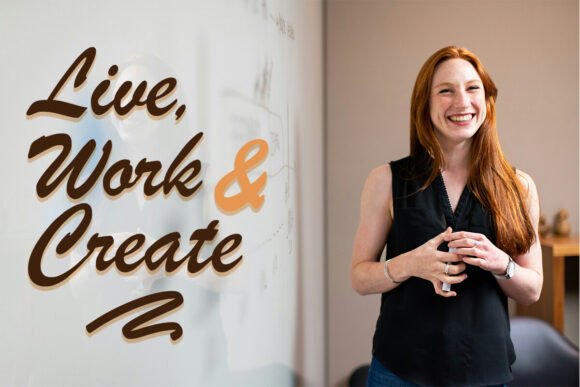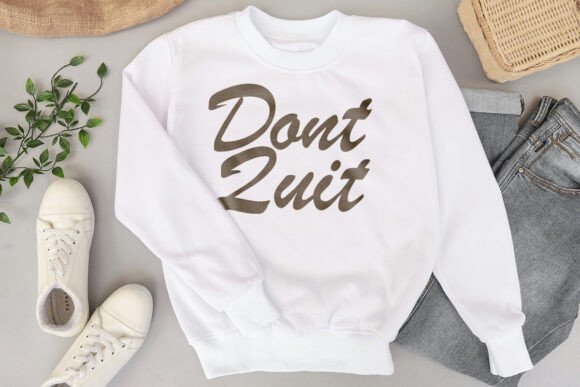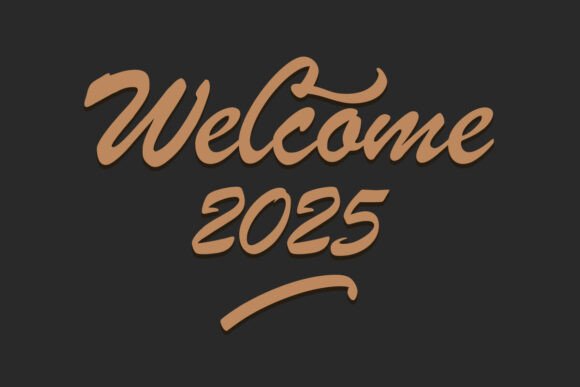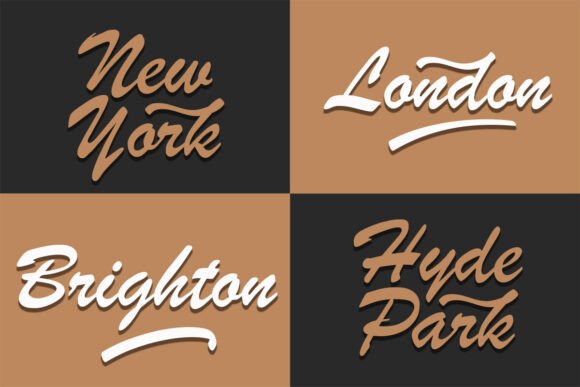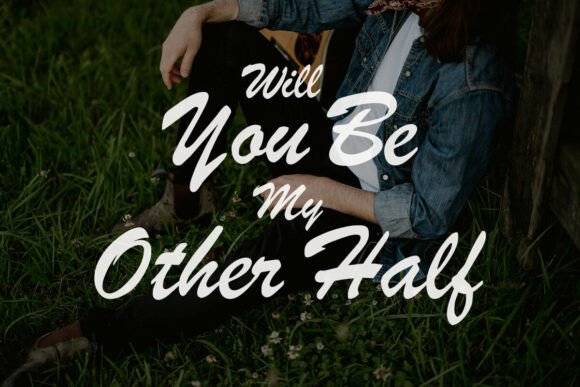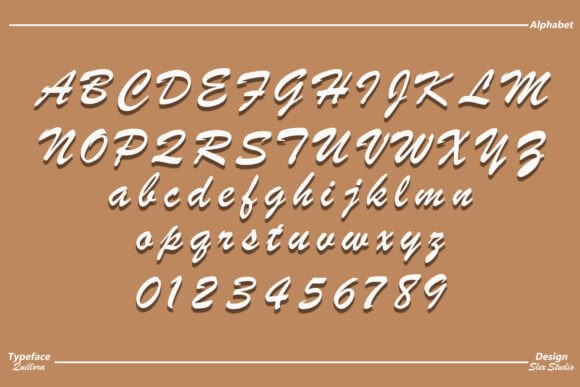
Introduction to Quillora Font
Have you ever been working on a creative project, pouring your heart and soul into every detail, only to feel like something’s missing? Maybe it’s the perfect font to give your design that extra oomph. For designers, finding the right font can make all the difference between a mediocre design and a truly exceptional one. That’s where the Quillora Font comes in – a semi-brush script font that’s as versatile as it is beautiful.
Characterized by its fluid strokes and slightly textured edges, Quillora Font combines a playful yet elegant style with a natural, hand-crafted feel. Its smooth, flowing curves and brush-inspired elements give it an organic, artistic charm that’s perfect for designers looking to add a touch of handmade elegance to their projects.
Key Features of Quillora Font
- High-quality design resource ideal for creative projects, offering a unique and elegant style.
- Features a transparent background, making it easy to use in various design contexts and allowing for seamless integration.
- Designed with precision and attention to detail, resulting in a crisp and clear font with excellent readability.
- Includes a range of weights and styles, providing designers with flexibility and options for customizing their creative project.
- Resolution: Optimized for high-resolution displays, ensuring that the font looks its best on modern screens and devices.
Honest Review: Quillora Font
I recently had the chance to experiment with the Quillora Font, a free design resource that’s been gaining traction in the creative community. My experience was largely positive, with a few caveats.
What works well: ✨ The Quillora Font is a high-quality, elegant script that’s perfect for adding a touch of sophistication to your creative project. The font’s versatility makes it suitable for a wide range of applications, from invitations to magazine layouts.
- ✨ High-quality design with a transparent background
- ✨ Easy to use and customize
- ✨ Suitable for various design applications
Overall, I’m impressed with the Quillora Font’s design and functionality. While it’s not without its limitations, I believe it’s a valuable resource for designers and creatives looking for a high-quality, elegant script font.
Tips for Getting the Most Out of Quillora Font
Use a transparent background to create a seamless design experience.
Experiment with different font sizes and styles to achieve the desired look.
Quillora Font is ideal for:
Graphic design projects
Branding and marketing materials
Web design and development